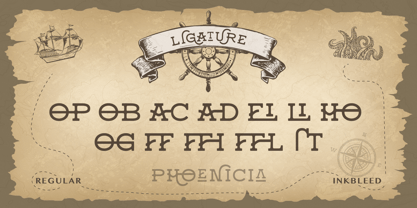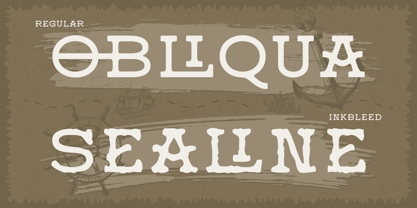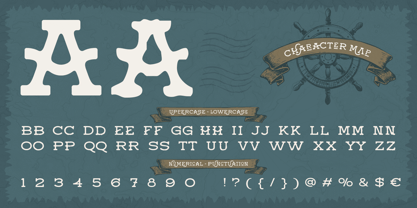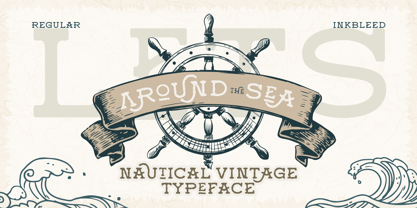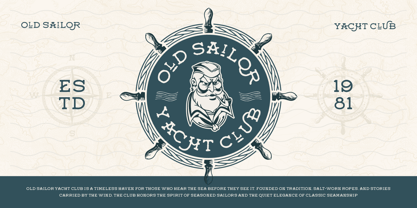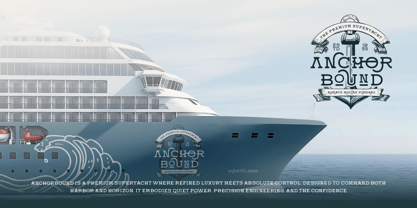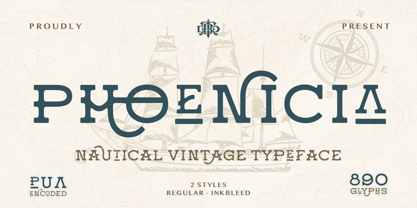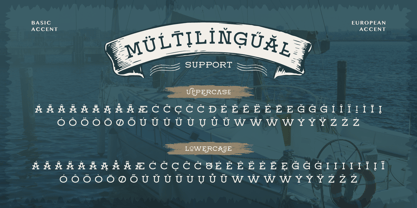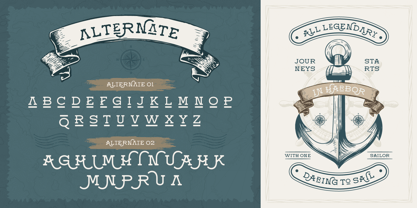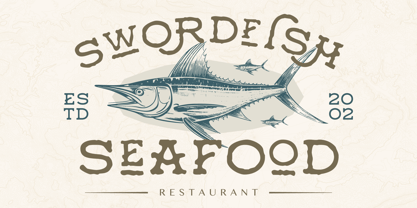
Phoenicia
La famille de polices Phoenicia a été conçue par Eric Kurniawan et publiée par Burntilldead. Phoenicia contient 2 styles et options de package familial. En savoir plus sur cette famille
Phoenicia is a nautical vintage typeface inspired by classic maritime lettering and old sailor typography. It brings a timeless sea-faring feel with bold shapes, strong serifs, and subtle vintage character. This font comes with two styles: Regular and Inkbleed, allowing you to switch between a clean classic look or a more textured, aged print effect. Phoenicia also includes rich alternates, ligatures, and multilingual support, giving you flexibility for expressive and authentic designs. Perfect for designs that need a heritage, nautical, or vintage atmosphere, Phoenicia works great for logos, restaurant branding, packaging, posters, labels, apparel, and editorial titles. Features: A - Z set (Uppercase & Lowercase), Number, Punctuation, Alternates, Ligatures, Multilingual